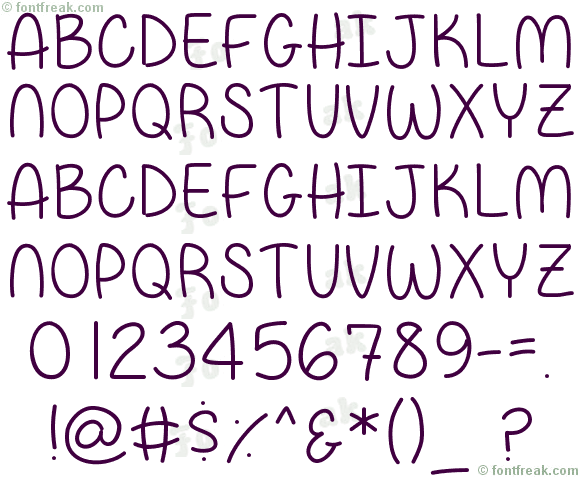
Papa Bear
Introducing the Papa Bear font by Vanessa Bays, a delightful display typeface that combines playful charm with a touch of whimsy. This font stands out in the realm of decorative fonts, showcasing a unique, handwritten aesthetic that captures attention and evokes a sense of warmth. The strokes are bold yet friendly, featuring consistent weight throughout, which allows for excellent legibility while maintaining a casual vibe. The slightly uneven spacing between letters adds to its hand-drawn feel, making it perfect for designs that aim to convey a personal touch.
Papa Bear is an ideal choice for various creative projects. It shines in contexts such as children's book covers, where its playful nature can captivate young readers. Additionally, it works well for family-oriented events like birthday invitations, bringing a sense of joy and celebration. For graphic designers looking to create engaging social media graphics, this font enhances visual storytelling by adding a unique flair. Small business owners can also leverage the Papa Bear font for branding, particularly in industries focused on family products or services, making their marketing materials memorable and inviting.
This font appeals to a diverse audience, including graphic designers seeking distinctive typefaces, small business owners wanting to connect with their customers, and content creators aiming to infuse personality into their projects. The Papa Bear font free download offers an accessible option for anyone looking to elevate their design work without breaking the bank.
Ultimately, what sets the Papa Bear font apart is its ability to blend fun with functionality. Whether used in print or digital formats, it brings a sense of warmth and approachability that resonates with viewers, making it a valuable addition to any designer's toolkit.